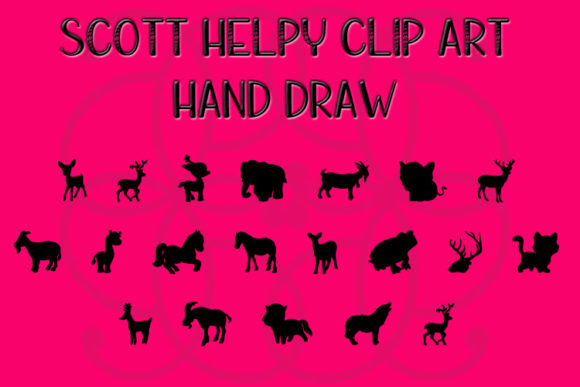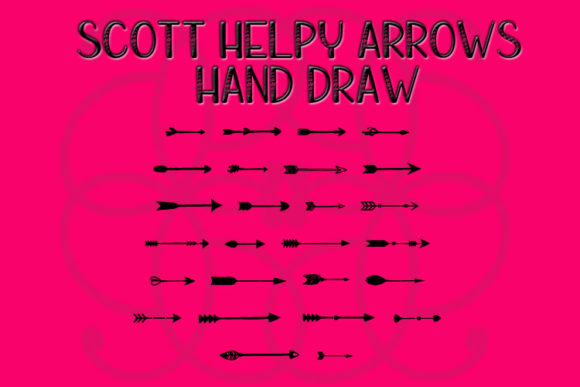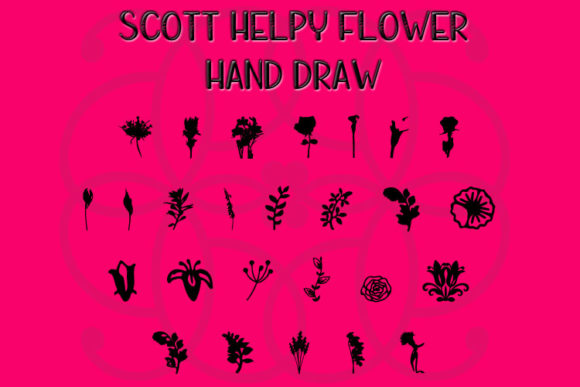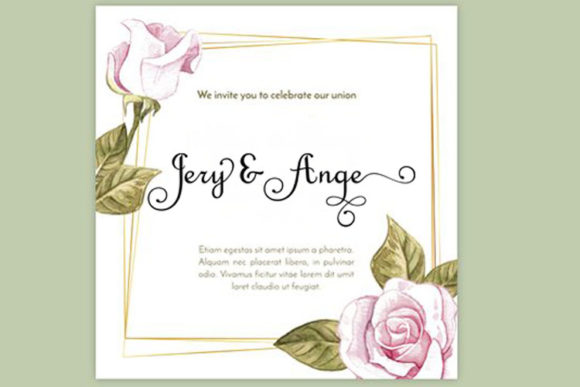
About Scott Helpy Family Font
The Scott Helpy is a large font family with a fresh design. Its handwritten and includes amazing swashes which will give your design an glamorous feel.
It’s perfect for greeting cards, branding materials, business cards, quotes, posters, and every other design which needs an upscale and chic look.